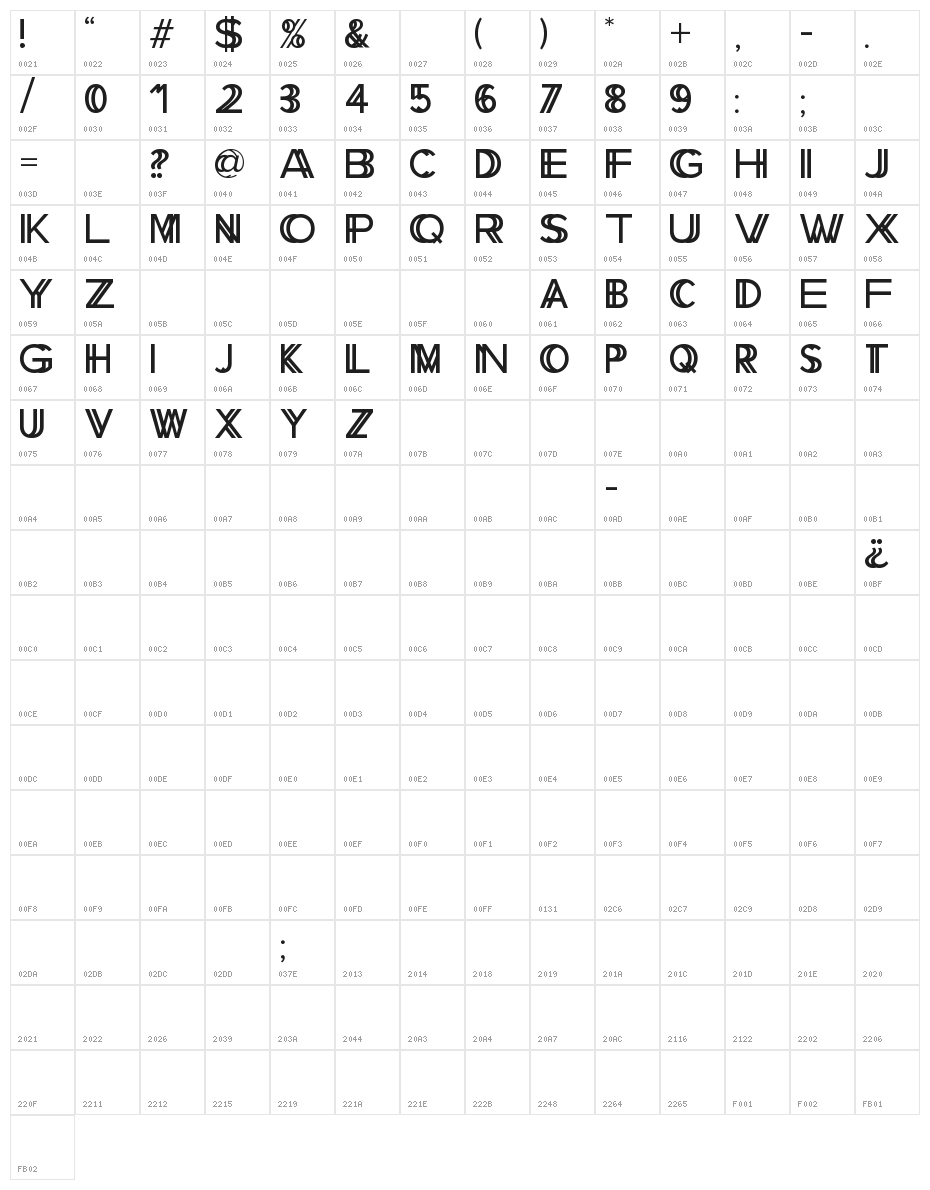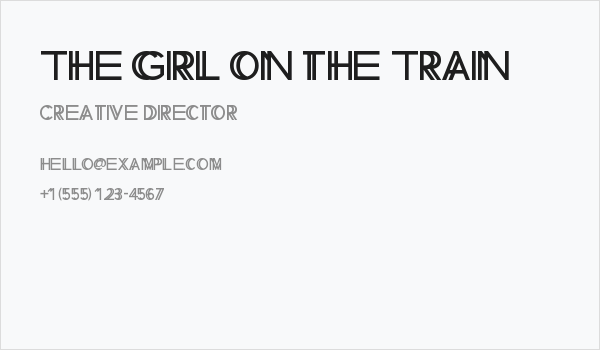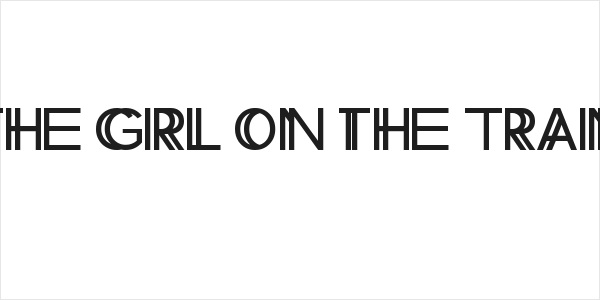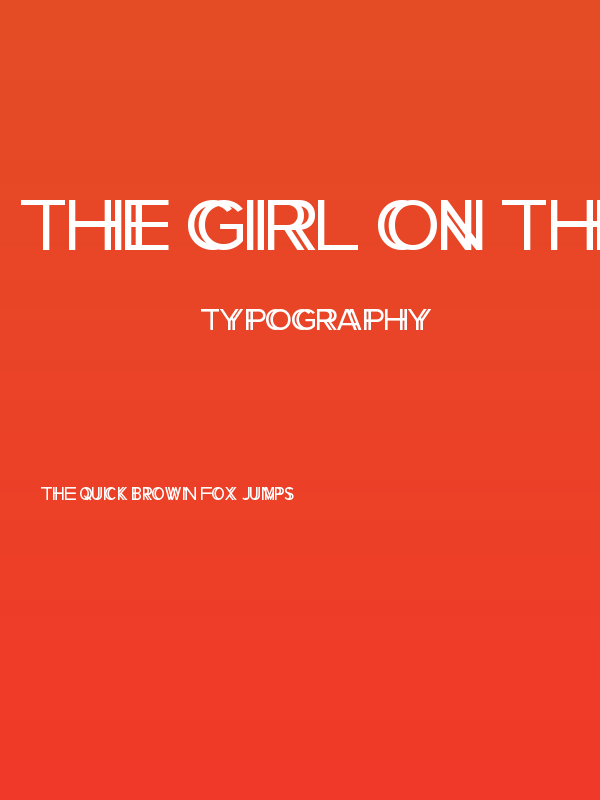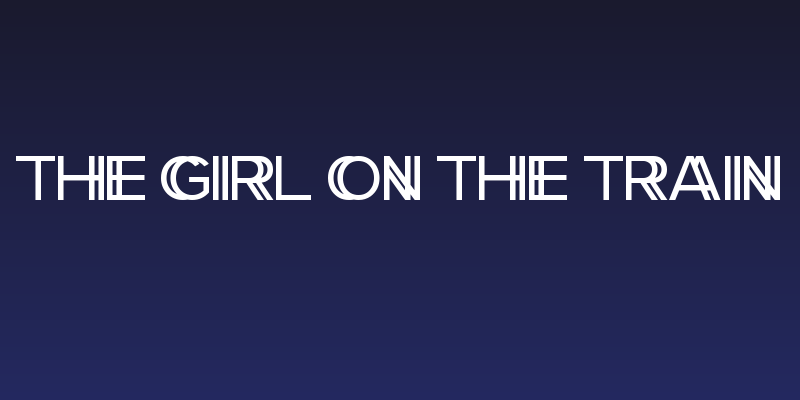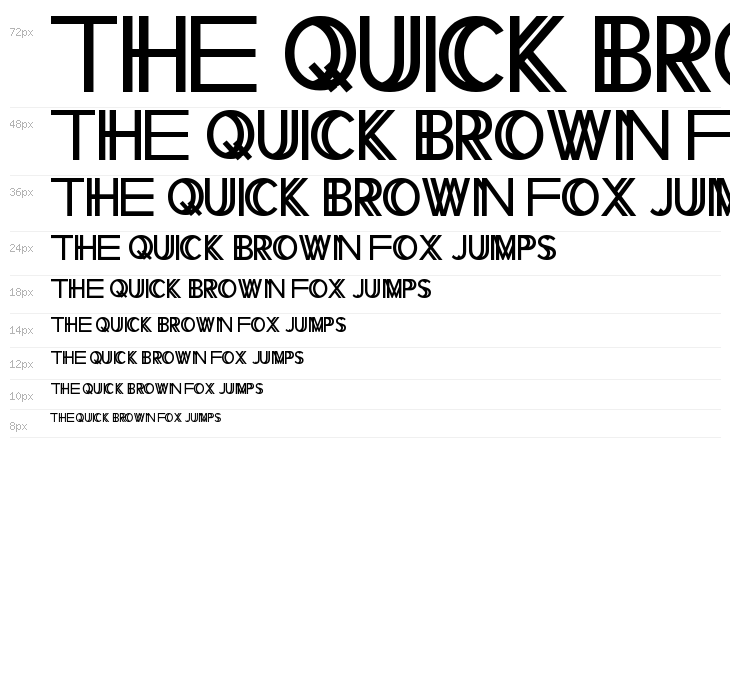
The Girl on the Train Font
The Girl on the Train Description
This font features a bold and modern design with a strong geometric structure. The characters are crafted with clean lines and sharp angles, giving it a contemporary and assertive appearance. The uppercase letters are particularly striking, with a consistent height and width that create a uniform look. The numerals and special characters maintain the same boldness, ensuring readability and visual impact. The font's style is suitable for making statements in headlines or logos, where clarity and emphasis are essential.